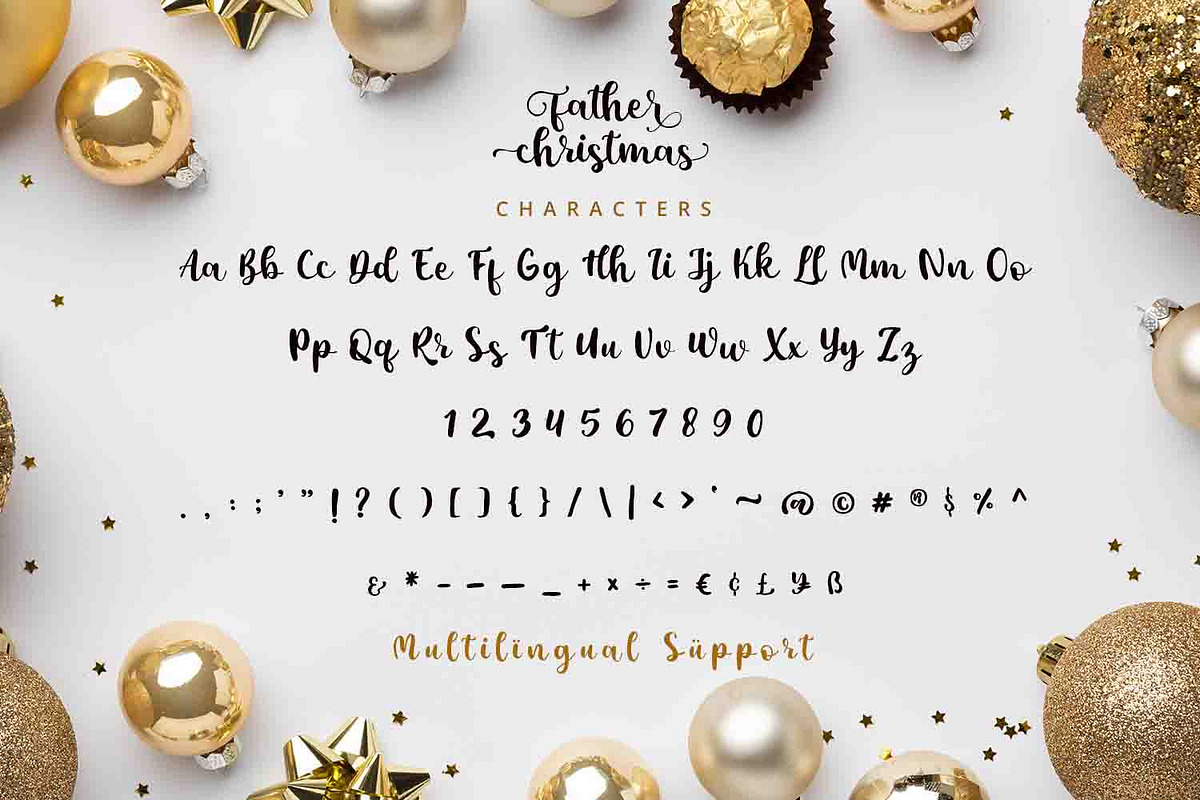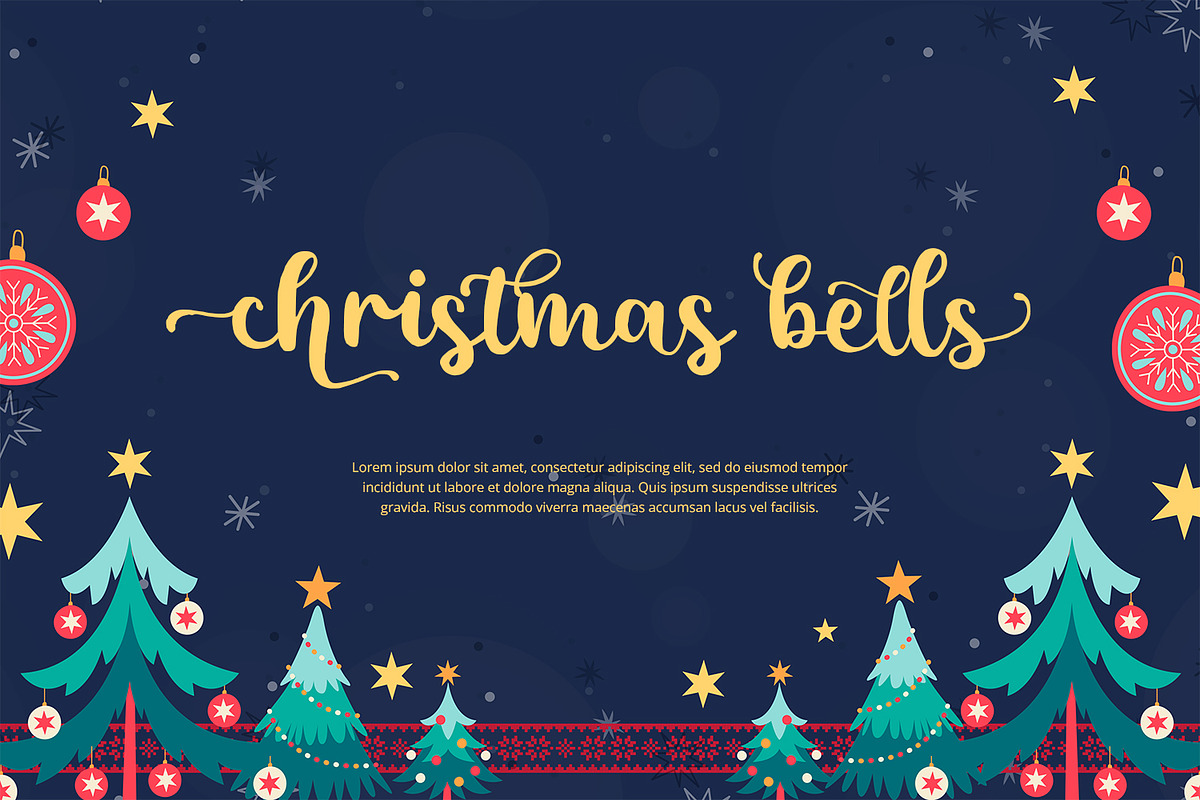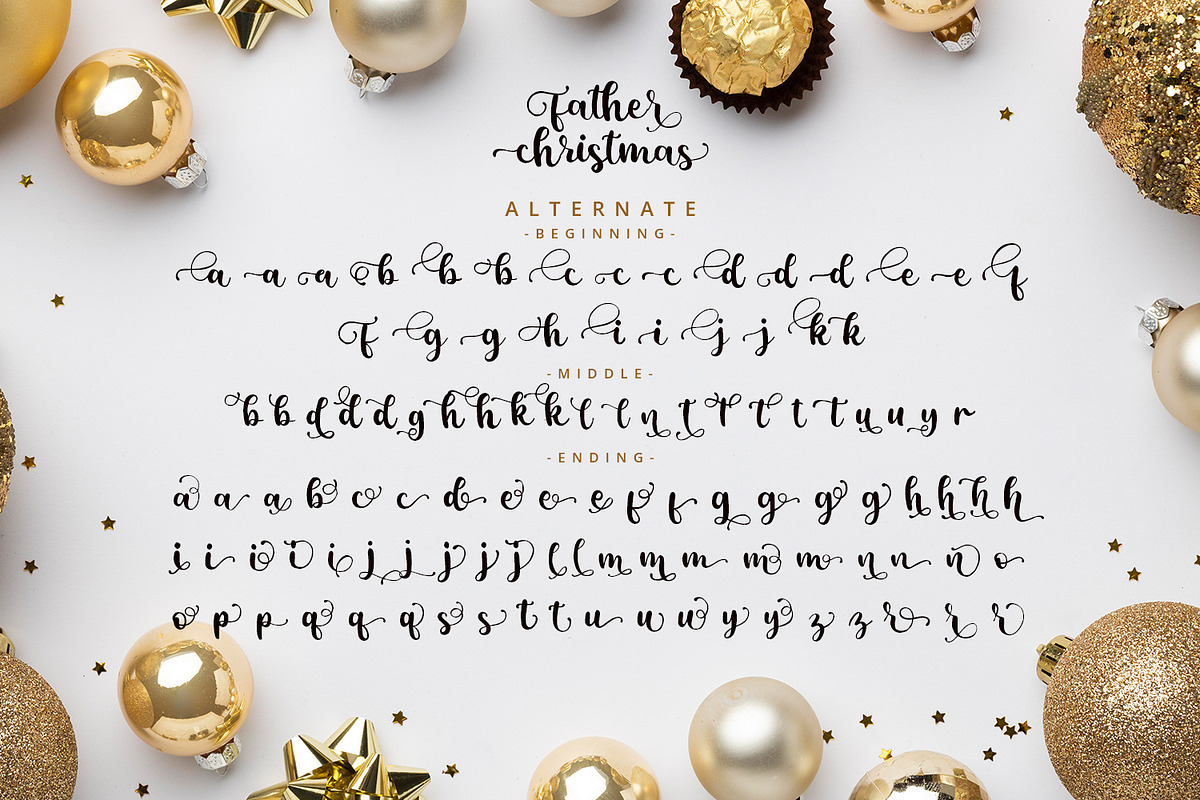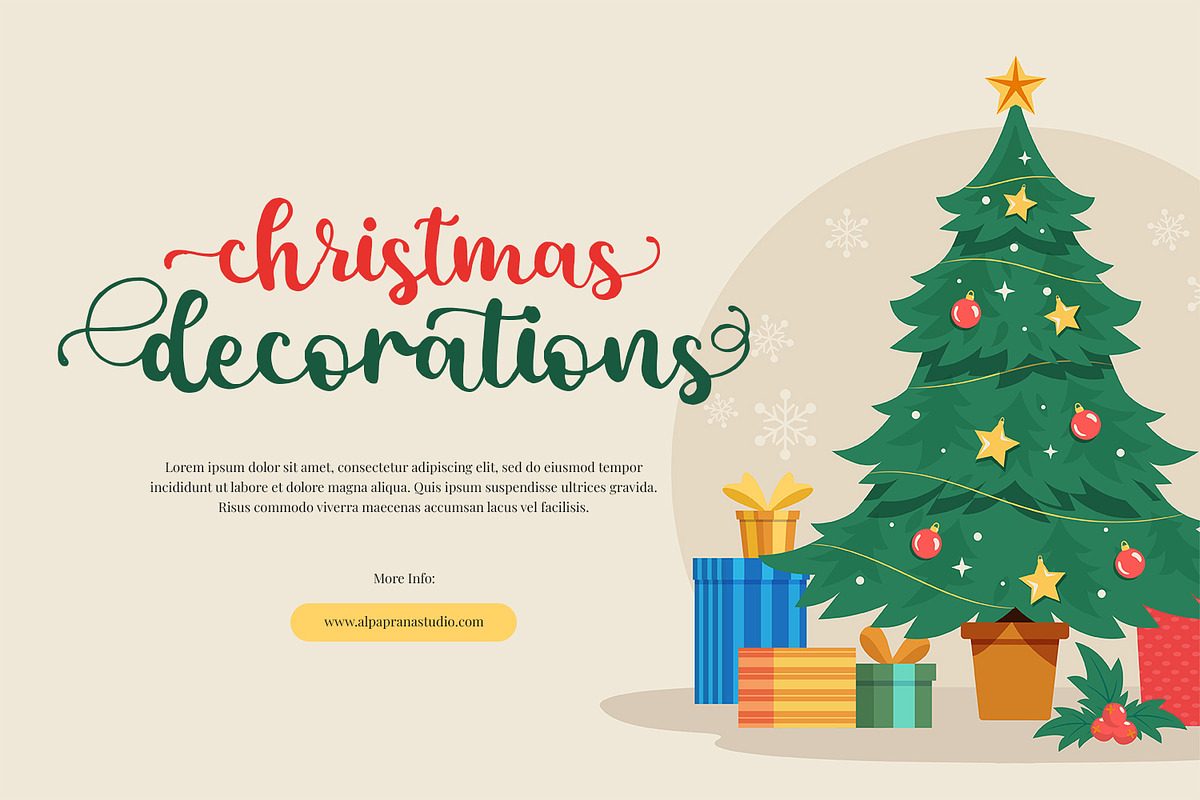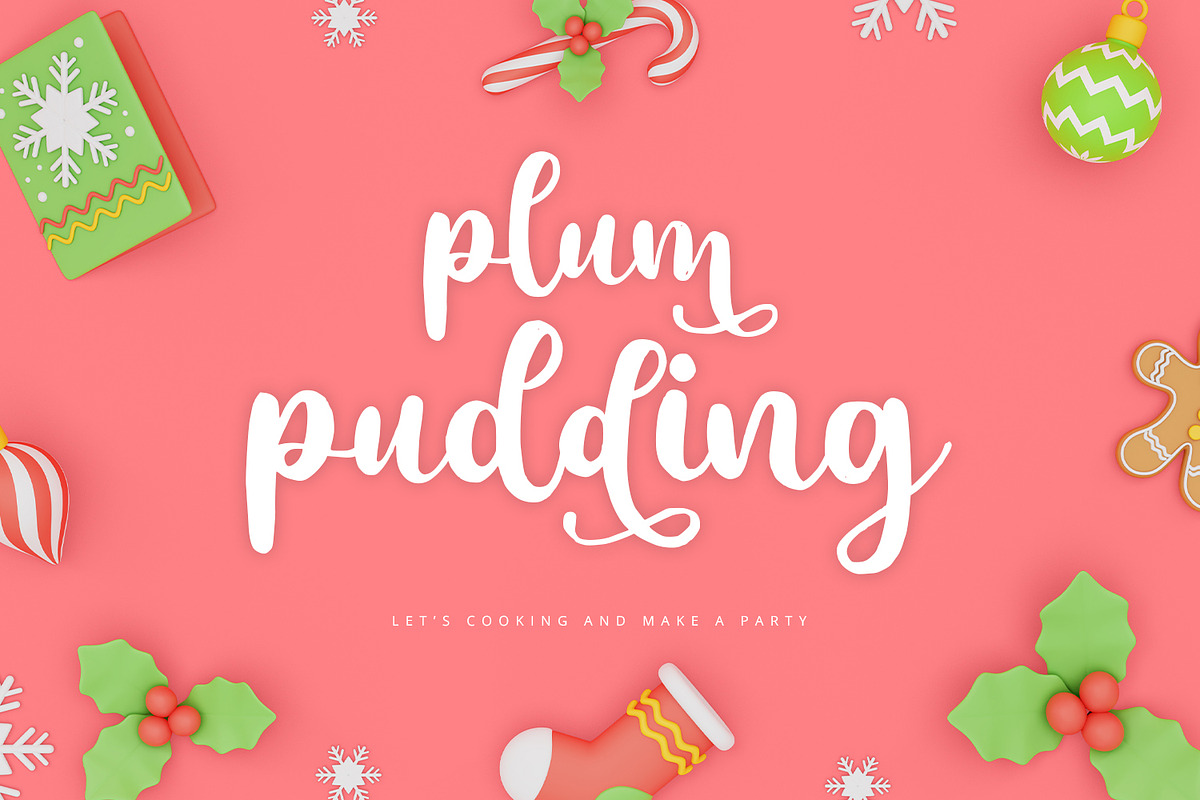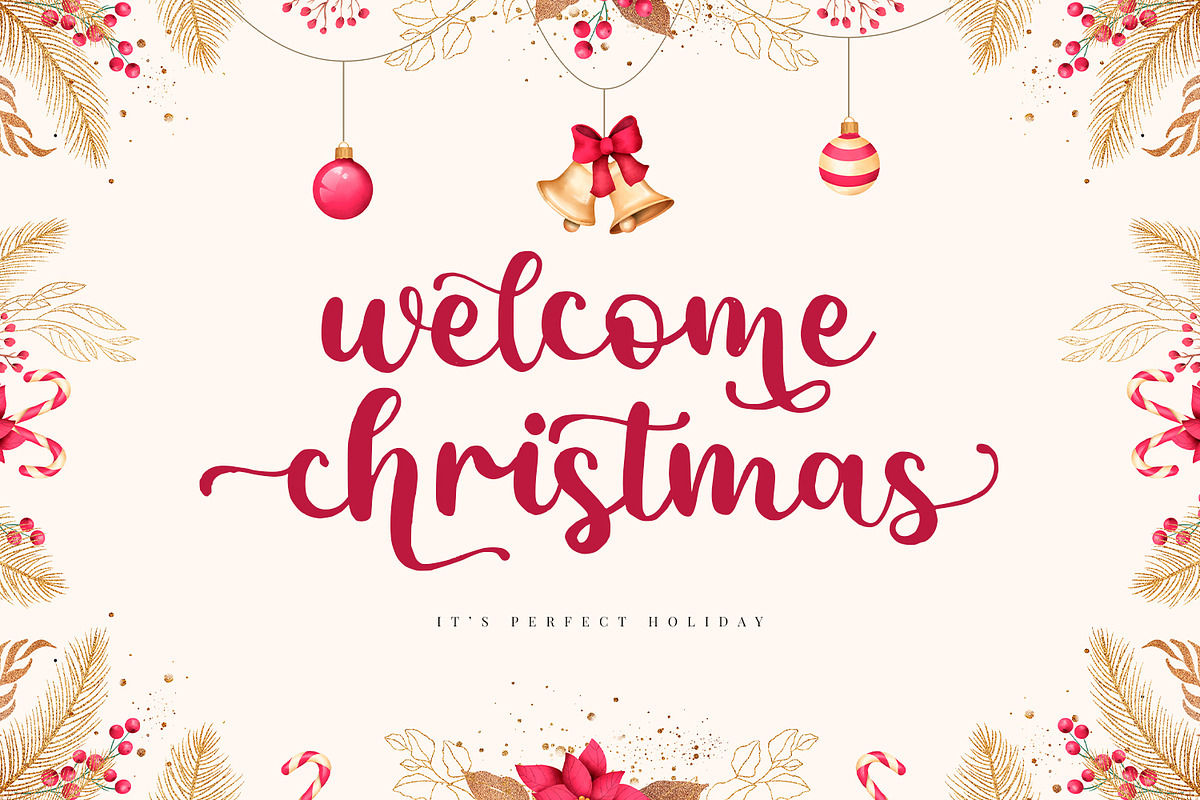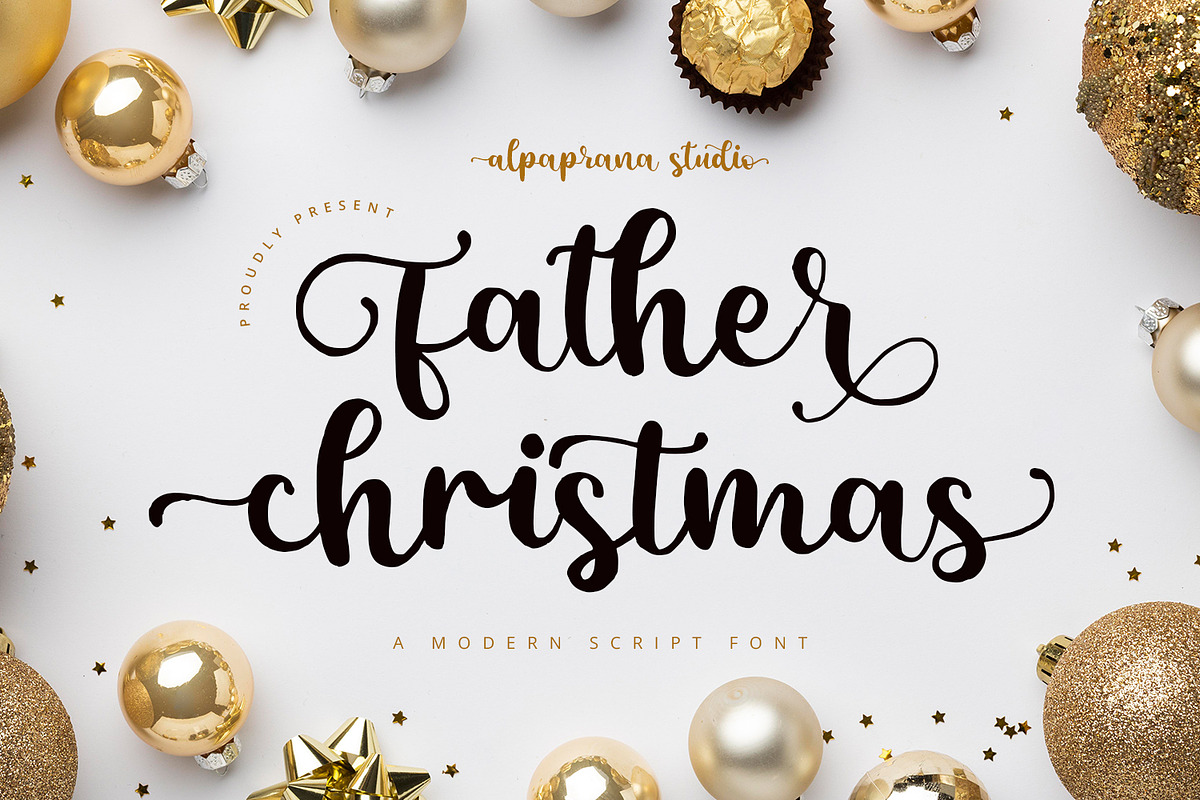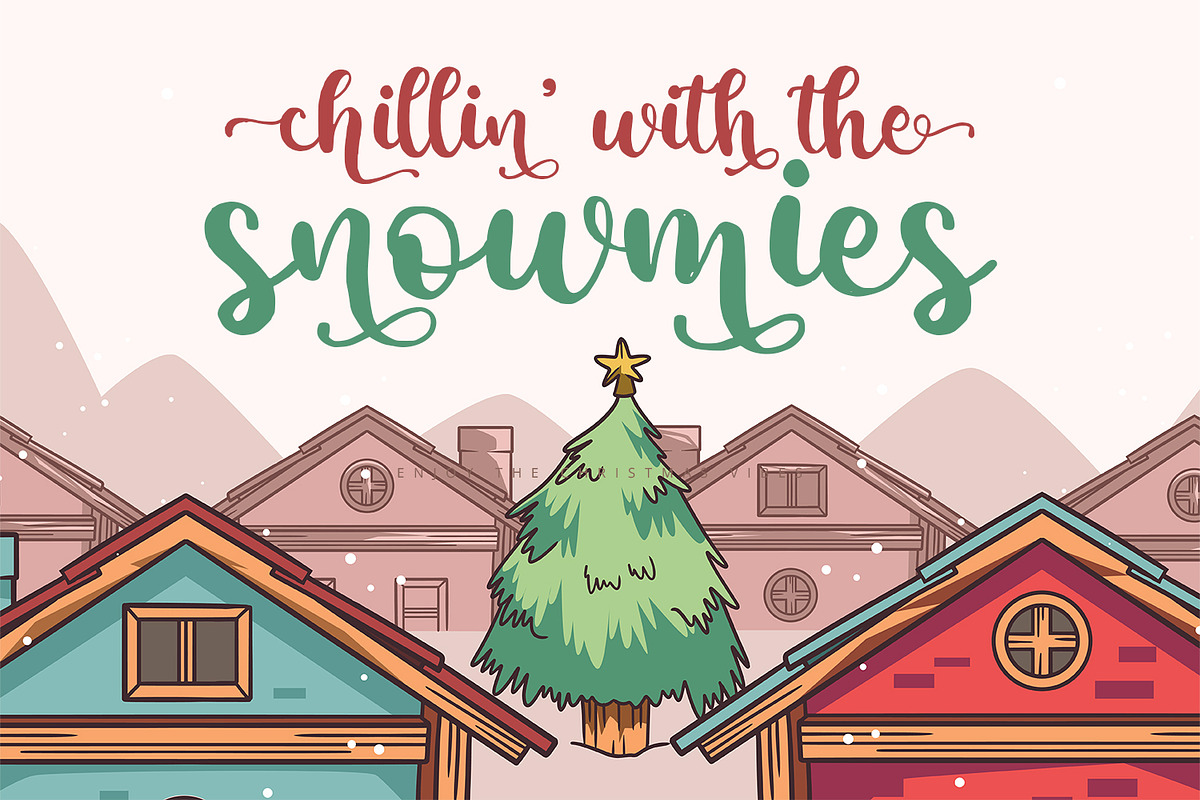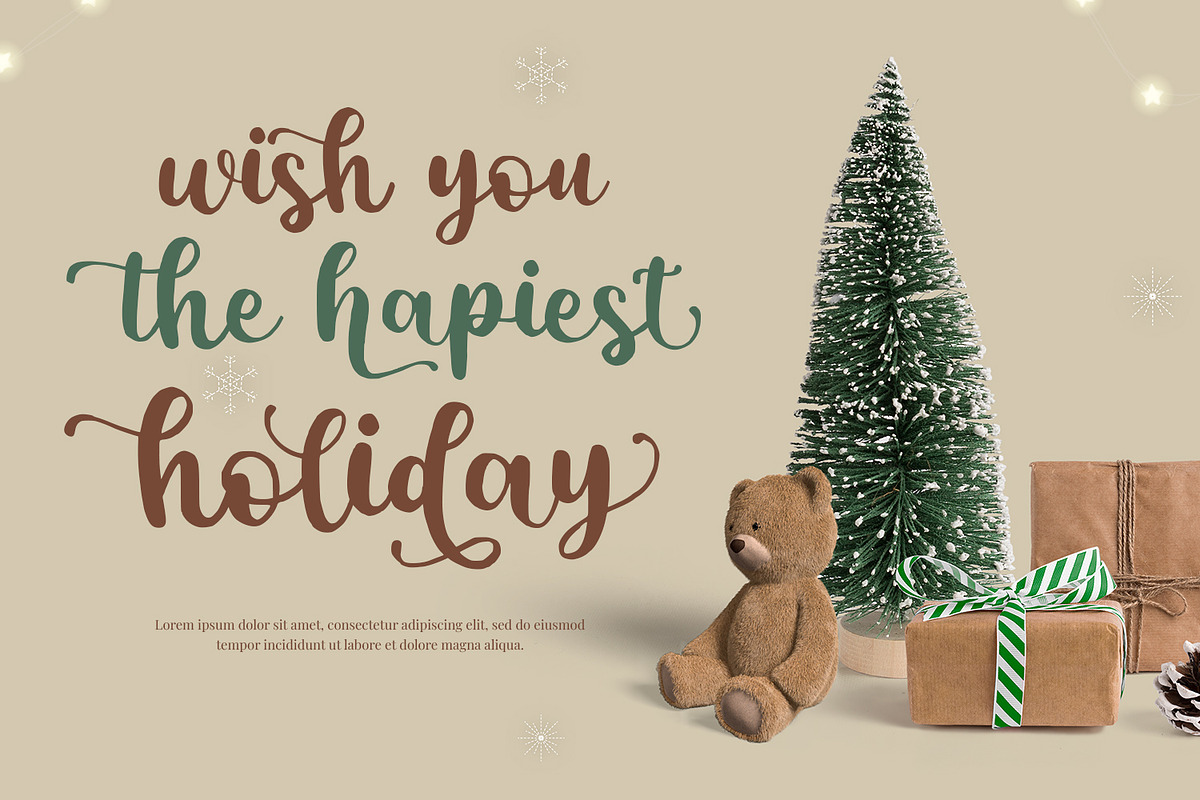
Father Christmas-Modern Script Font
Father Christmas is a modern script font with cute and unique style. It will be perfectly used for Branding, Logo Design, Lettering, Logotype, Clothing, Poster, magazine, packaging, posters, shopping bags, t-shirts, book covers, photography, special events and other design project.